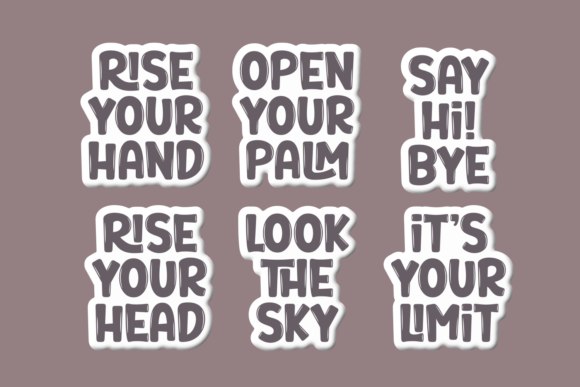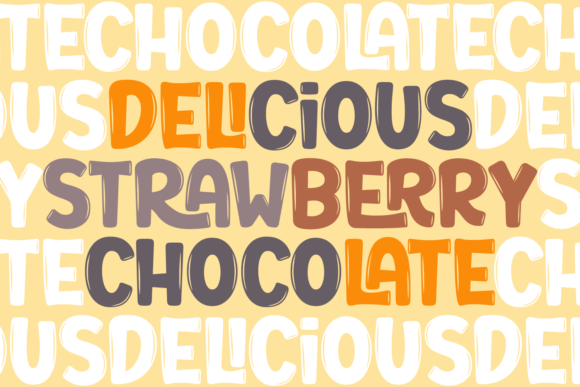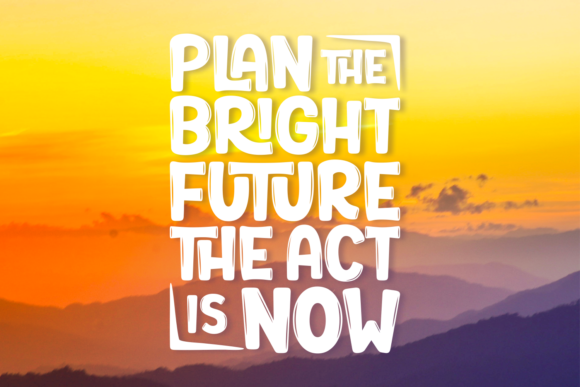
The Ultimate Display Font: Blaz Thor Bubble
Have you ever been in the middle of a design project, and suddenly, you’re stuck on finding the perfect font? I recall a particularly frustrating experience while working on a vintage-themed poster for a client. The design was almost complete, but the font just wasn’t right. That’s when I stumbled upon Blaz Thor Bubble, a cool, thick lettered, and vintage-styled display font that instantly elevated my design. In this article, we’ll dive into the world of Blaz Thor Bubble, exploring its features, uses, and some helpful tips for getting the most out of this amazing font.
An Honest Review of Blaz Thor Bubble
- ✨ Stunning Vintage Aesthetic: Blaz Thor Bubble boasts a unique, retro vibe that’s perfect for creating eye-catching posters, flyers, and prints.
- 💥 High-Impact Display: The thick lettering and bold design of Blaz Thor Bubble make it ideal for headlines, titles, and promotional materials.
While Blaz Thor Bubble is an exceptional font, there are a few minor considerations to keep in mind:
- ⚠️ Legibility at Small Sizes: Due to its bold and decorative nature, Blaz Thor Bubble may not be the best choice for body text or small font sizes.
- 🤔 Limited Versatility: While perfect for display purposes, this font might not be suitable for longer texts or more formal designs.
Blaz Thor Bubble was inspired by the classic typography of the 1970s and 1980s. The font’s creator aimed to capture the essence of vintage advertising and retro graphics, while making it versatile and easy to use. The result is a font that’s both nostalgic and modern, perfect for designers looking to add a touch of classic flair to their work.
Q: Is Blaz Thor Bubble suitable for body text or long-form content?
A: While Blaz Thor Bubble is an excellent display font, it may not be the best choice for body text or long-form content due to its bold and decorative nature.